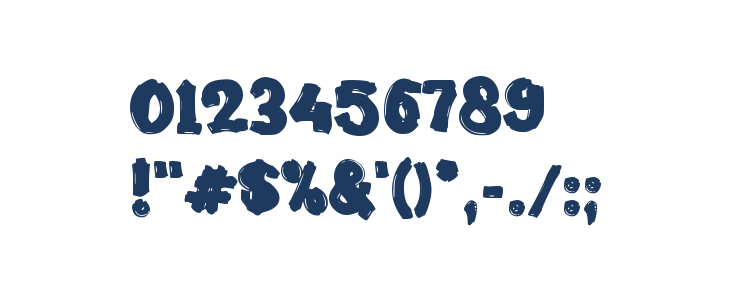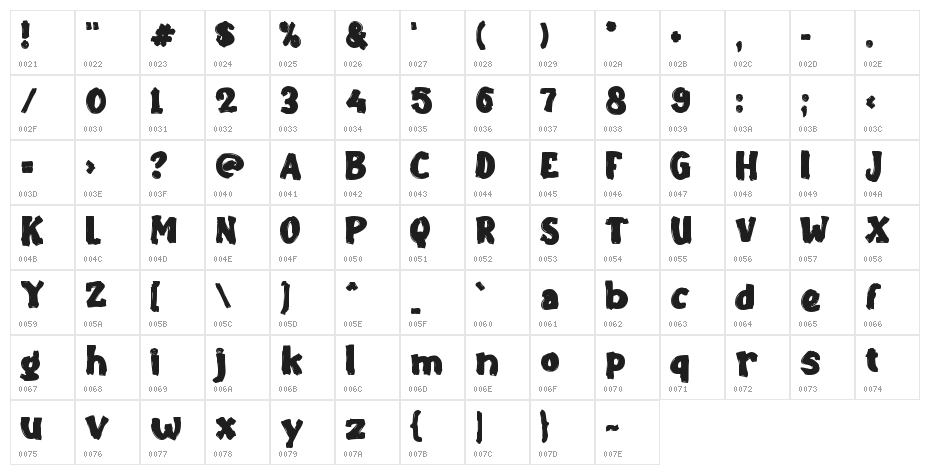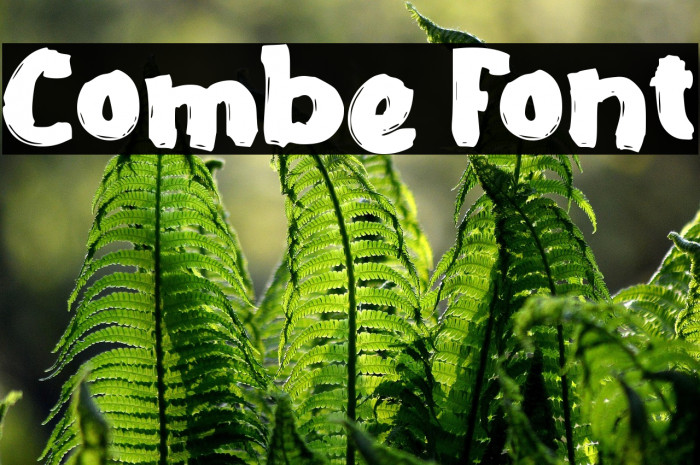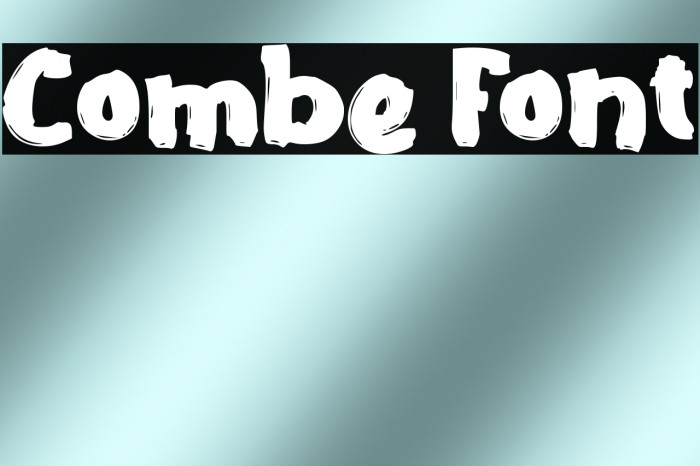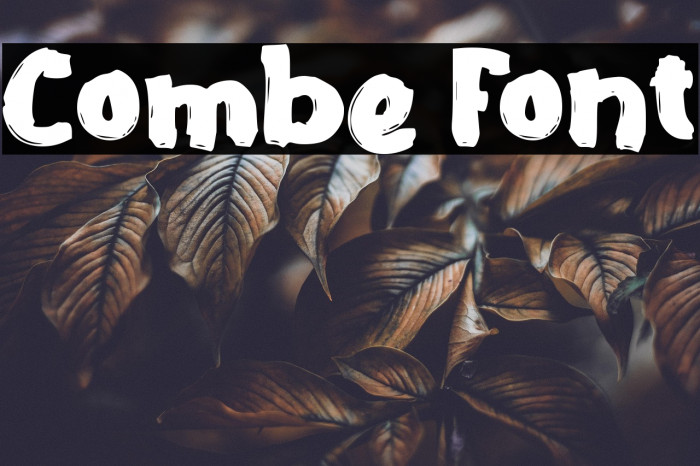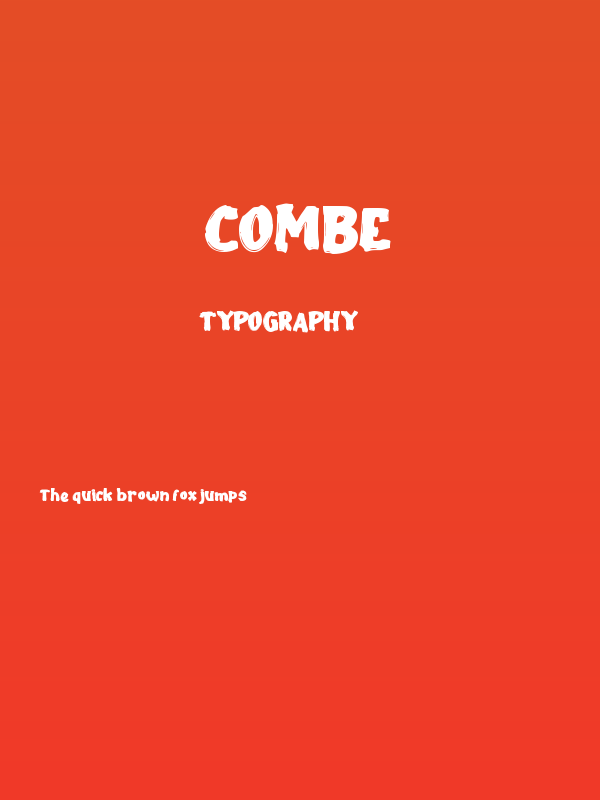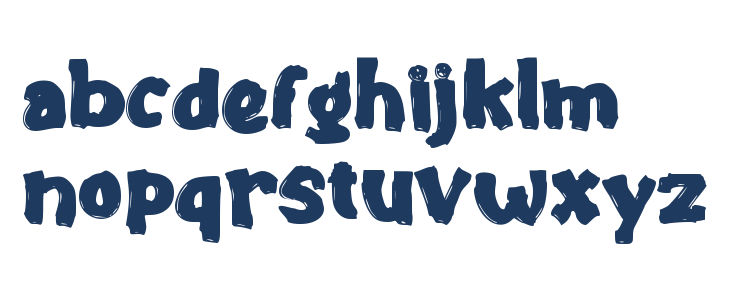
Combe Font
Combe Description
This font features a bold and playful style with a hand-drawn appearance. The characters are thick and rounded, giving them a friendly and approachable look. The irregular edges and slight variations in stroke width add to its casual and artistic feel. The uppercase and lowercase letters maintain a consistent style, while the numerals and special characters complement the overall design. This font's unique and whimsical nature makes it stand out, perfect for projects that require a touch of creativity and fun.
| Overall Style | Playful, Artistic |
| Proposed Projects | Ideal for children's books, playful branding, creative posters, and artistic invitations. |